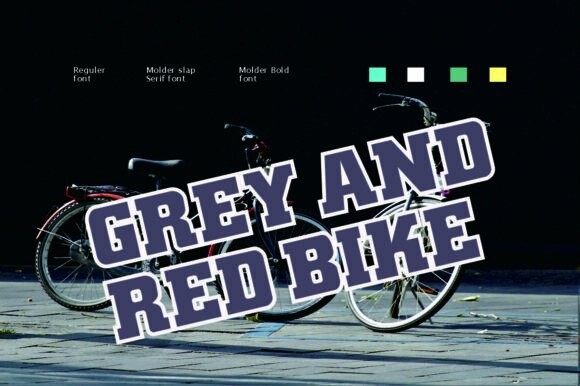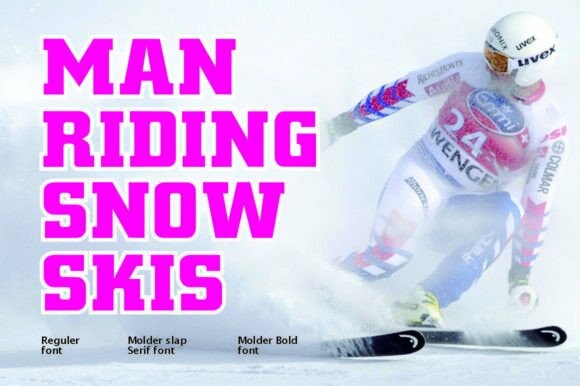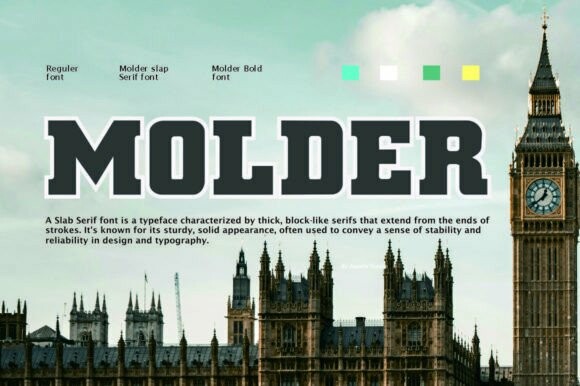
Molder Slab Font
Molder Slab Font – Where strength meets style in a slab serif font that commands attention with its robust yet refined letterforms, making every word a statement of confidence and clarity.